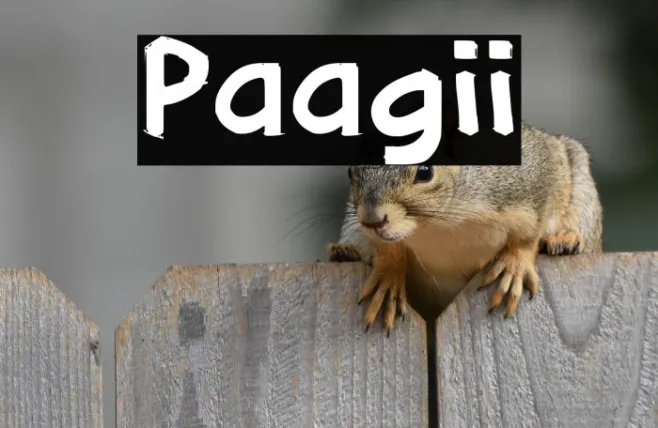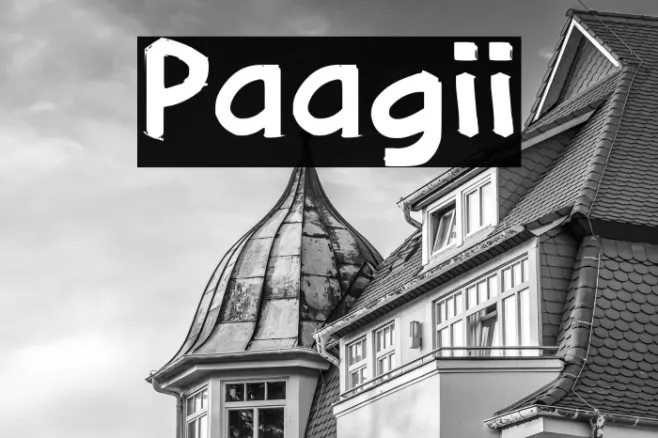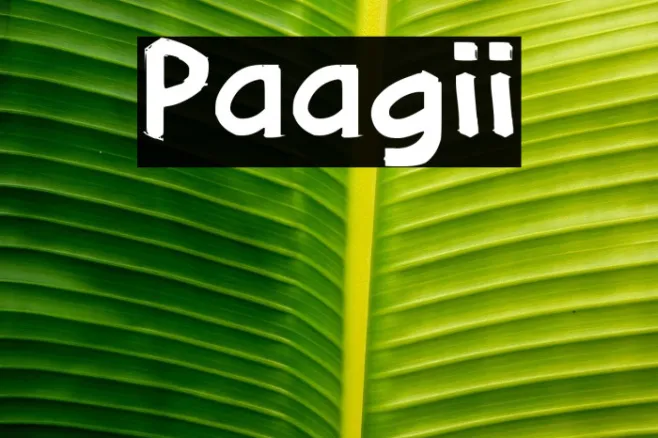
Paagii Font
Paagii Description
Playful, bold, and irregular handwritten style font with a casual and whimsical appearance.
| Overall Style | Casual, Playful, Handwritten |
| Use Case | Headlines, Posters, Children's materials, Logos |